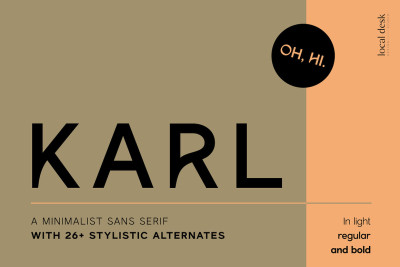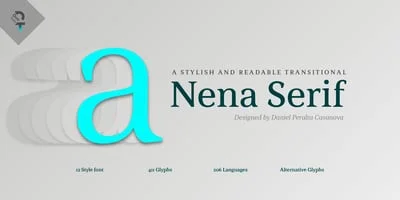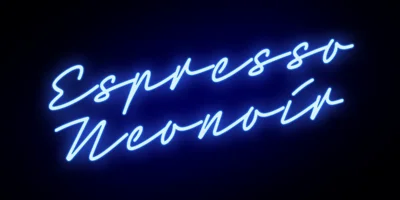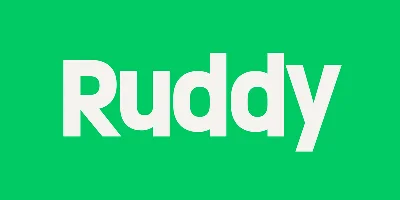
Free Fonts for Holiday Cards: Spread Festive Cheer with the Right Font
The holidays are the perfect time to get creative and spread cheer with personalized cards, whether you’re sending out festive greetings to loved ones or designing promotional cards for your business. And while the images and colors you choose are important, typography can make all the difference in setting the tone for your card. The right font helps convey the spirit of the season, whether it's joyful, elegant, or whimsical.
Luckily, you don’t need to spend a fortune on premium fonts to create stunning holiday cards. There are plenty of free fonts that will help elevate your designs, adding a touch of festive flair without breaking the bank. From classic serif fonts to playful handwritten styles, the right font can help you capture the warmth and magic of the season.
In this guide, we’ll share some of the best free fonts for holiday cards that will help you spread festive cheer and make your designs shine.
Why Fonts Matter for Holiday Cards
When it comes to holiday card design, typography is often the unsung hero. The font you choose has a direct impact on the overall feel of the card and how it’s received. Here’s why fonts matter:
Set the Mood
Whether you're designing a card for Christmas, New Year's, Hanukkah, or any other holiday, the font you choose plays a huge role in setting the mood. A playful, whimsical font can create a fun, lighthearted feel, while an elegant serif font might evoke sophistication and class. -
Convey Festive Cheer
The right font can help convey the joy and warmth associated with the holidays. Fonts with flowing curves or decorative elements can help your card feel more festive, while simpler, clean fonts are often more professional for business-related greetings. -
Enhance Readability
Holiday cards often feature greetings or messages that are warm and heartfelt, so legibility is key. A great holiday font should not only look beautiful but also be easy to read, whether it’s a short message on the front of the card or a longer message inside. -
Create Consistency
If you’re creating a series of holiday cards (or using your cards for business purposes), maintaining a consistent font style will help tie everything together and reinforce your brand or theme. This consistency in typography can make your cards look more polished and well-thought-out. -
Stand Out
A unique, eye-catching font can make your card stand out among the hundreds of other holiday greetings people receive. Whether you're designing something for personal or business use, a carefully chosen font will help leave a lasting impression.
Things to Consider When Choosing Fonts for Holiday Cards
Before diving into the specific fonts, here are a few important factors to consider:
Readability
While fancy, decorative fonts are fun, they should not sacrifice readability. Avoid overly intricate fonts for longer messages and opt for something cleaner when your message is more detailed. You can use decorative fonts for headings or short holiday greetings. -
Tone and Theme
Consider the holiday you're celebrating and the tone you want to convey. For example, a handwritten or calligraphy-style font works well for a cozy, intimate Christmas card, while a more modern, sans-serif font might be better for a New Year’s greeting. -
If you plan to use more than one font, choose fonts that complement each other. Typically, pairing a bold or script font with a clean, simple font for body text can create a nice balance and keep the design looking polished. -
Space and Layout
Consider how much space you have on your card. Some fonts have a large x-height and can feel crowded, while others are more condensed and work well in smaller spaces. Ensure your font fits well with the layout and design of your card.
Best Free Fonts for Holiday Cards
Here’s a collection of free fonts that are perfect for holiday cards, helping you craft the ideal greeting with the right festive flair.
1. Dancing Script
Why it works:
Dancing Script is a lively, cursive font that feels like it’s been handwritten with love. Its playful curves and casual feel make it a great choice for holiday cards that convey warmth and a personal touch. It’s perfect for “Merry Christmas,” “Happy New Year,” or any festive greeting.
Ideal for: Casual holiday cards, Christmas greetings, New Year’s cards, and cards with personal messages.
2. Great Vibes
Why it works:
Great Vibes is an elegant cursive font with a flowing, graceful style. It’s perfect for more formal holiday cards or any design that needs a touch of sophistication. Its clean, smooth curves make it ideal for elegant holiday greetings, invitations, or business-related holiday cards.
Ideal for: Elegant Christmas cards, holiday invitations, formal New Year’s greetings, or business holiday cards.
you’re aiming for elegant sophistication, playful whimsy, or something in between, the free fonts we’ve covered here will help elevate your designs without breaking the bank.
Remember to consider the holiday you're celebrating, the tone you want to convey, and how well your chosen font pairs with the rest of your design elements. With the right typography, you’ll not only create a beautiful card but also send a message that resonates with the spirit of the season.
Happy designing, and may your holiday cards bring joy to everyone who receives them!